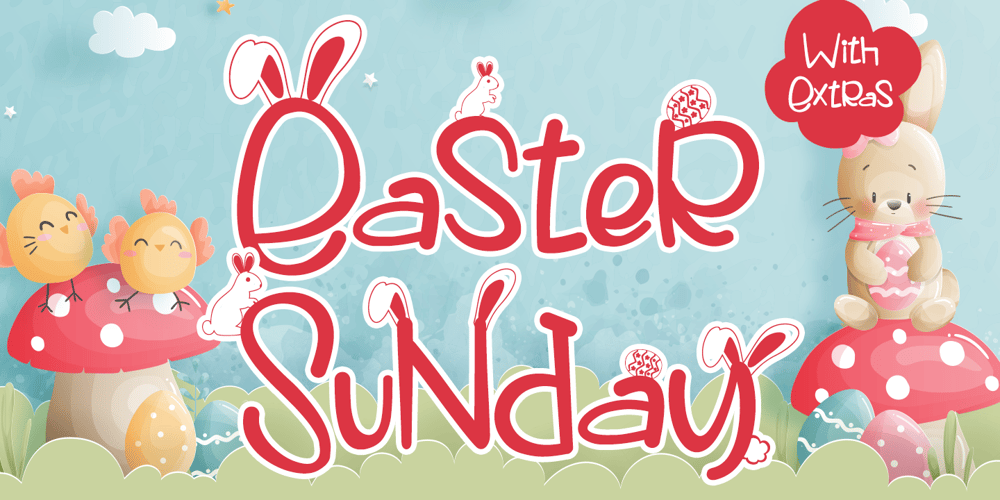
Easter Sunday
Easter Sunday font
Easter Sunday Font Family was designed by Thomas Aradea and published by Letterara. Easter Sunday contains 2 styles and family package options. Easter Sunday a script jam-packed with flourishes and additions to make each of your designs completely unique. This font is easy to read, and even easier to use; add some easter theme to your work with Easter Sunday!Add Easter Sunday, a versatile script font, to your collection today!